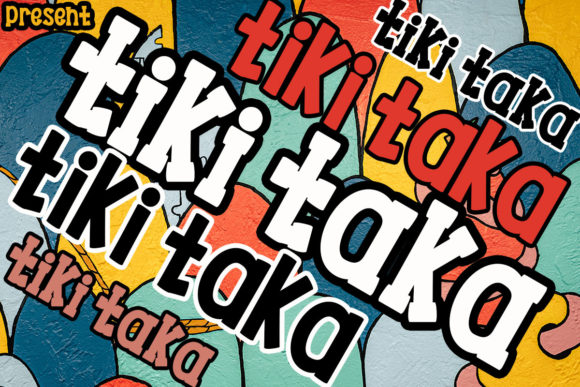
Introducing the Tiki Taka Duo Font - a must-have font for anyone seeking a unique and striking typeface to add to their collection. This bold and quirky Serif and Sans Serif Font Duo is the brainchild of edwar.sp111 and is tailored for those in search of a font specifically designed for boat lettering.
Not only is Tiki Taka visually impressive, but it also boasts incredible versatility. Perfect for use in a range of design projects, such as book covers, social media posts, websites, logos, branding, and more. This font duo will bring your work to life, infusing it with personality, style, and flair.
Crafted with precision, Tiki Taka is a font that is built to last. The Serif and Sans Serif styles work in harmony, providing a cohesive and impactful look that is sure to grab attention. Whether you're a professional designer or someone with a creative flair, this font duo will help elevate your work to new heights.